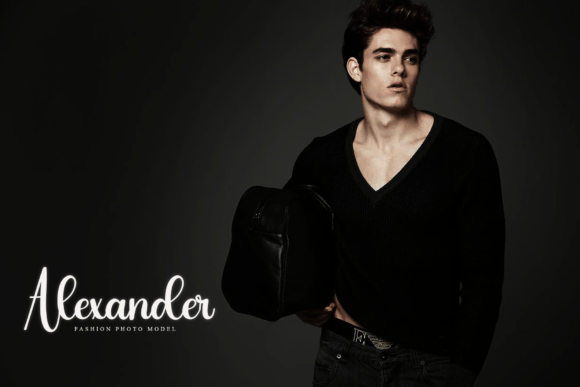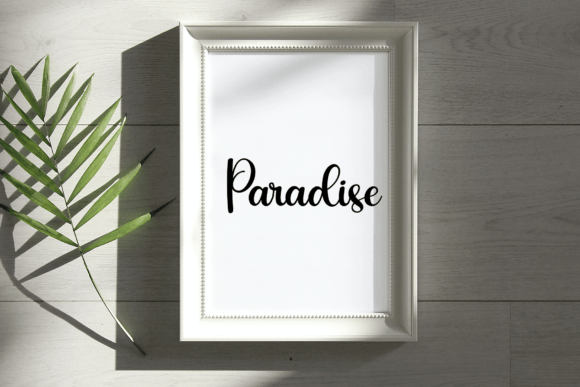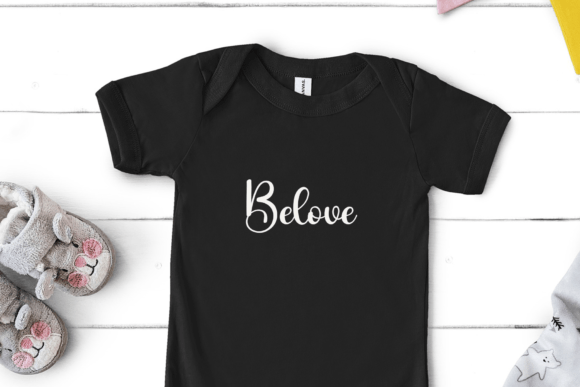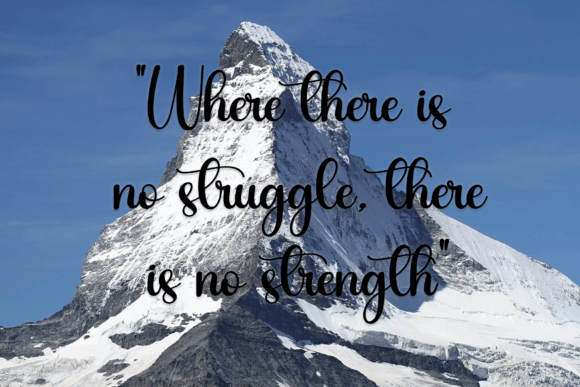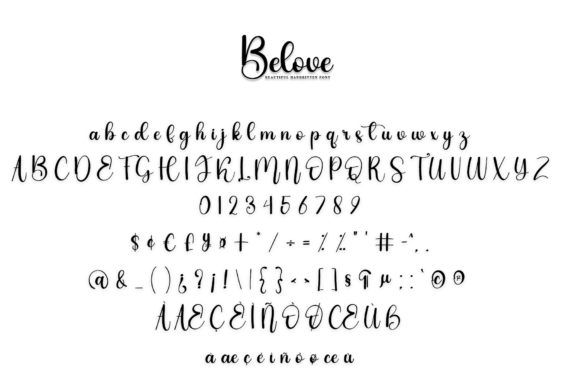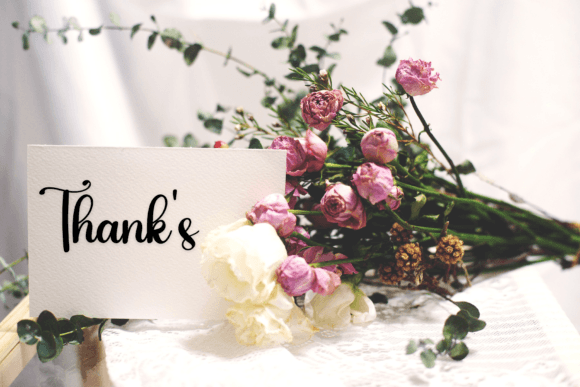
Have you ever sat down with a blank page and a blank mind, waiting for inspiration to strike? For many designers, that moment is a familiar and thrilling experience. It’s the spark that sets off a chain reaction of creativity, as ideas flow and possibilities unfold. And for those who have ever felt the thrill of that moment, we have a secret to share: the Belove Font.
Crafted with love and care, the Belove Font is a delicate handwritten script designed to add a touch of elegance and whimsy to any project. Whether you’re writing letters, invitations, or labels for your latest food product, this font is the perfect companion to bring your ideas to life. And for designers, the Belove Font is a valuable tool in their arsenal, offering a unique and versatile way to express themselves and connect with their audience.
- Unique Characteristics: Elegant, modern design with a unique blend of rounded and geometric shapes
Belove Font Review
Overall, I think the Belove Font is a solid addition to any designer’s toolkit. Here are some things that work well:
- ✨ Elegant and refined aesthetic: The Belove Font exudes sophistication and luxury, making it perfect for high-end branding and design projects.
- ✨ Good legibility: The font is clear and easy to read, even at smaller font sizes, which is a must for any font.
- ✨ Versatile: Belove Font comes in a range of weights and styles, making it easy to adapt to different design needs.
- ⚠️ Limited language support: Belove Font may not support certain languages or character sets, which could be a problem for international design projects.
- ⚠️ Not ideal for body text: While the font looks great at larger sizes, it can be a bit too ornate for body text, which may make it difficult to read at smaller sizes.
Overall, I think the Belove Font is a great choice for designers who need a high-end, elegant font for their projects. While it may have some limitations, its strengths outweigh its weaknesses, making it a valuable addition to any designer’s toolkit.
Tips for Getting the Most Out of Belove Font
Belove Font is a versatile font that works well in a variety of contexts. To get the most out of it, try:
- Using it in combination with other elegant fonts for a sophisticated look.
- Experimenting with different font sizes and colors to create visual interest.
- Using it for titles, headings, and other display text to add a touch of elegance.
Belove Font is well-suited for:
- Luxury branding and packaging.
- High-end
Alternatives to Belove Font
Pacifico Font is a beautiful, elegant script font that is perfect for creating a luxurious and sophisticated look. It is ideal for use in branding, invitations, and other high-end designs. Compared to Belove Font, Pacifico Font has a more refined and sophisticated feel, making it a great choice for designers who want to add a touch of elegance to their designs.
Lobster Font is a fun, casual script font that is perfect for creating a playful and energetic vibe. It is ideal for use in social media graphics, advertising, and other designs that require a lighthearted and approachable feel. Compared to Belove Font, Lobster Font is more playful and casual, making it a great choice for designers who want to add a touch of fun to their designs.
Amarante Font
Amarante Font is a beautiful, elegant script font that is perfect for creating a romantic and whimsical look. It is ideal for use in wedding invitations, greeting cards, and other designs that require a touch of romance. Compared to Belove Font, Amarante Font has a more delicate and feminine feel, making it a great choice for designers who want to add a touch of romance to their designs.
Great Vibes Font is a beautiful, elegant script font that is perfect for creating a sophisticated and modern look. It is ideal for use in branding, advertising, and other designs that require a touch of elegance. Compared to Belove Font, Great Vibes Font has a more modern and sleek feel, making it a great choice for designers who want to add a touch of sophistication to their designs.